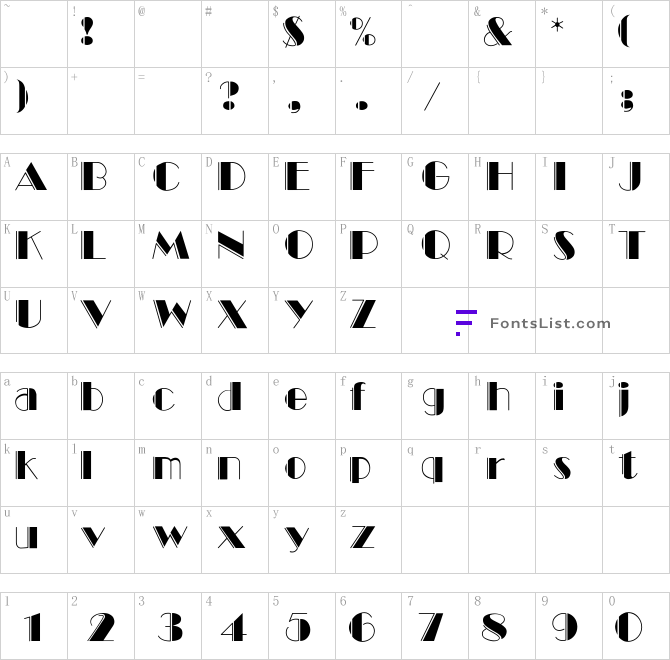
- Font Name:BalletEngraved
BalletEngraved-copy-5-.ttf is a very beautiful artistic font, BalletEngraved-copy-5-.ttf is widely used in the design and printing of various books and pictures,BalletEngraved-copy-5-.ttf has a strong visual impact,BalletEngraved-copy-5-.ttf is a commonly used font in newspapers, magazines and books, and is used in posters, e-commerce Poster design, store design, logo design, font design and other fields.BalletEngraved-copy-5-.